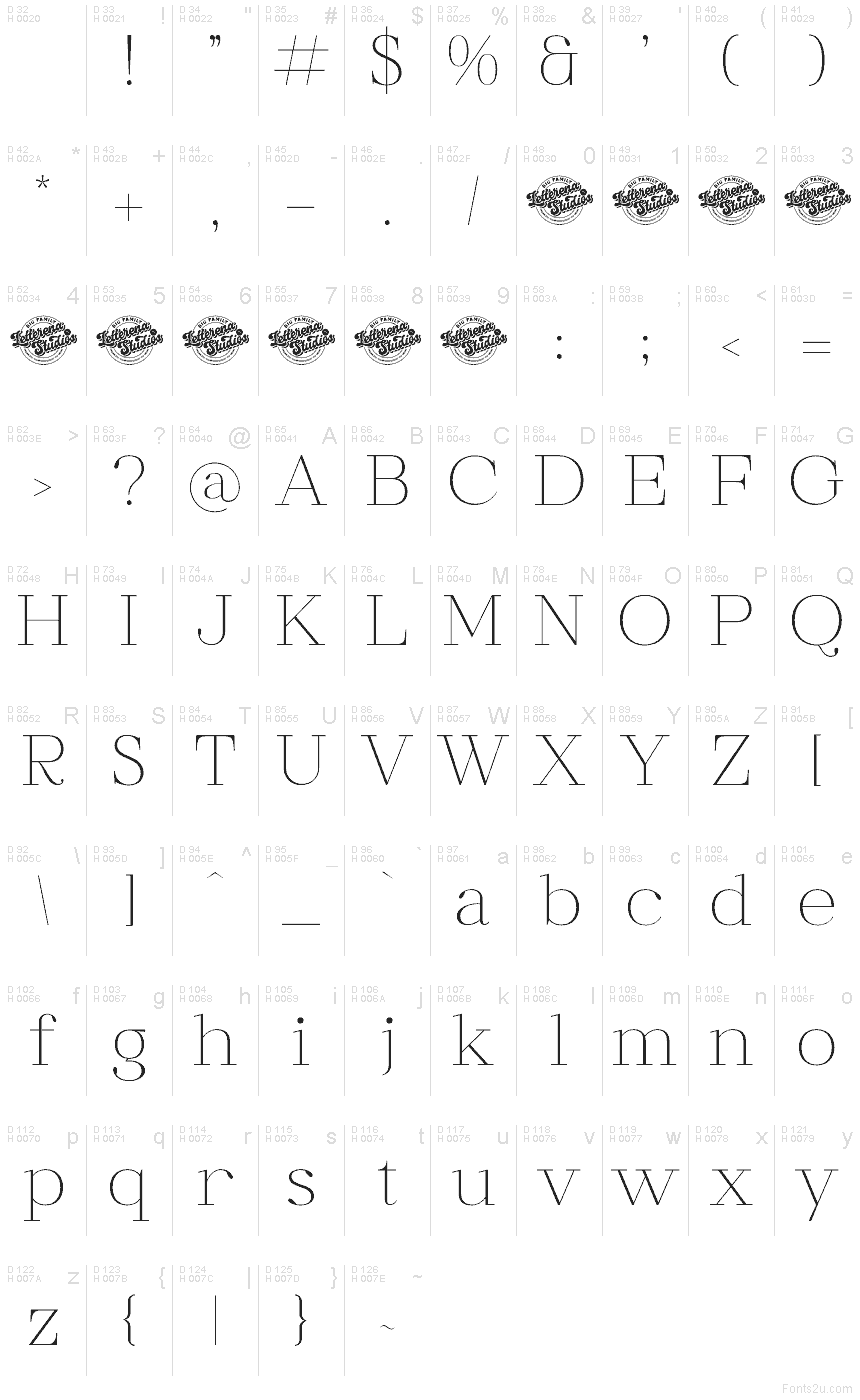
Galiken font, designed by Letterena Studios, is an elegant light serif font that embodies a refined and modern aesthetic. It connects with viewers using professional and sophisticated tones that will remind them of tradition, trust, and the “serious” aspect of many brands and projects.
Add this free serif font to online branding platforms, magazines, posters, packaging designs, blog posts and Instagram promotion posts. Also use it for headlines on your websites or books like novels of mostly ghastly themes including horror or mystery where white space only highlights the weirdness more.